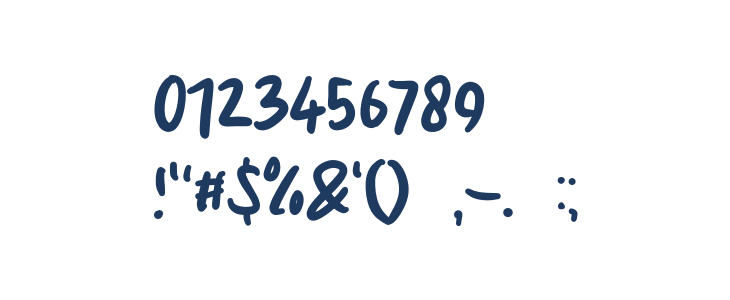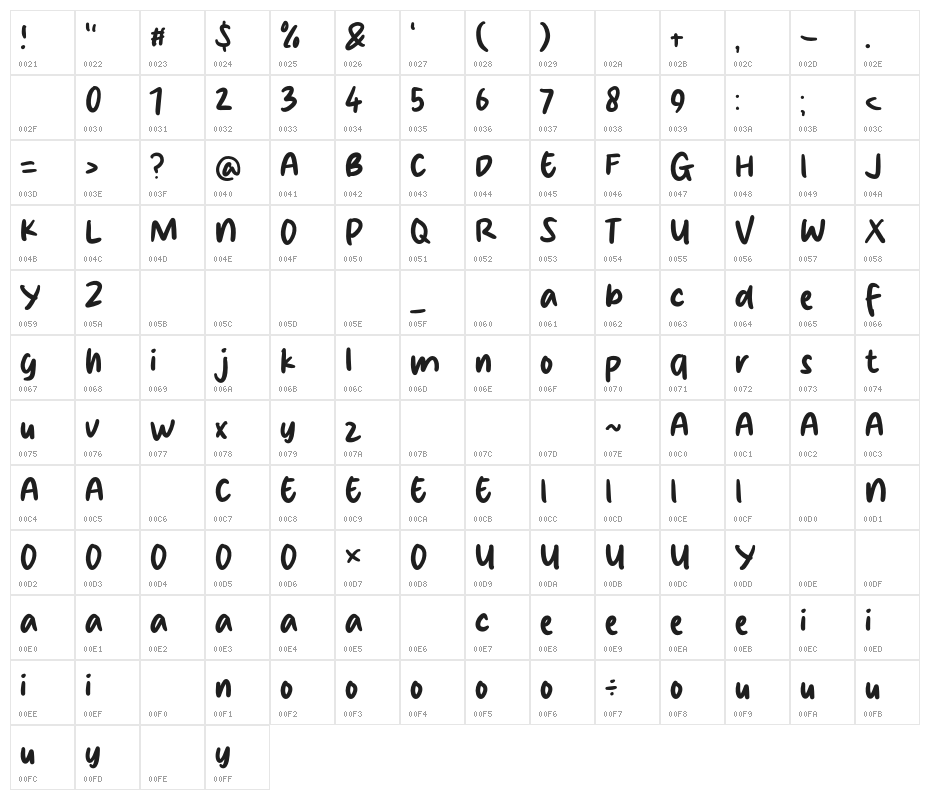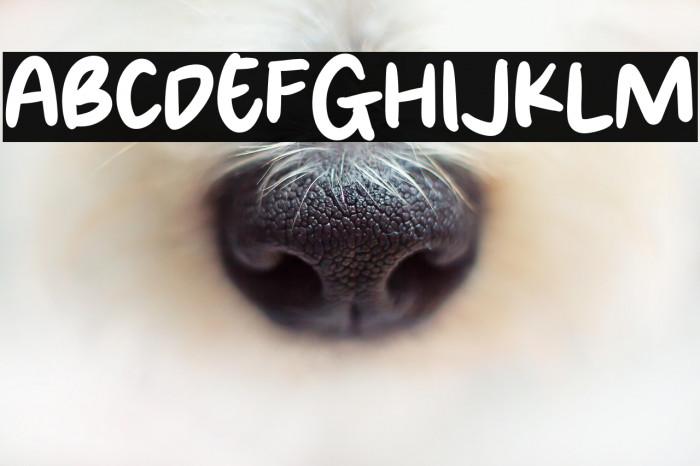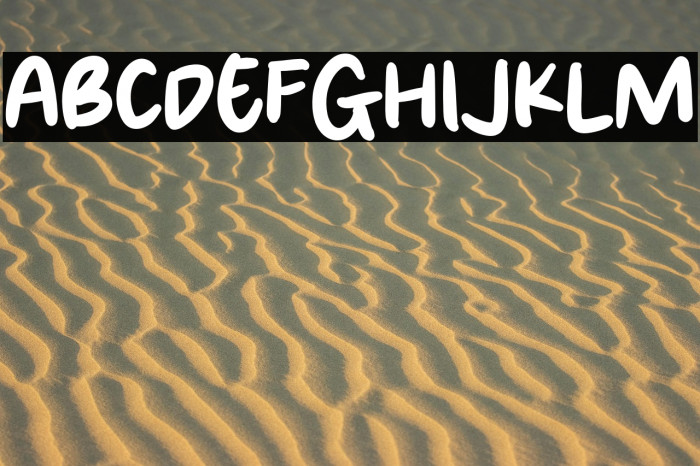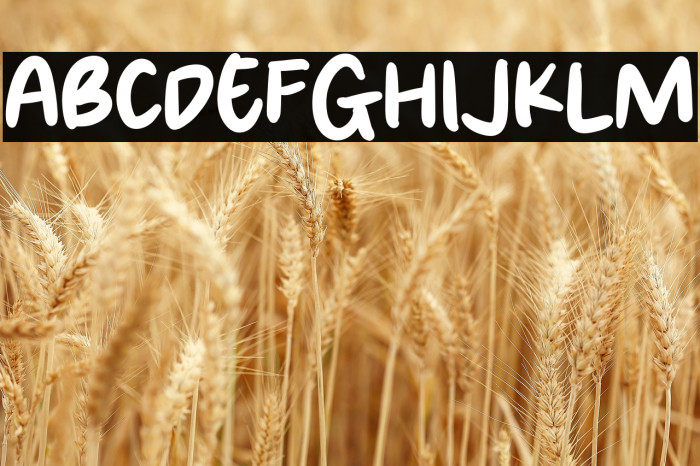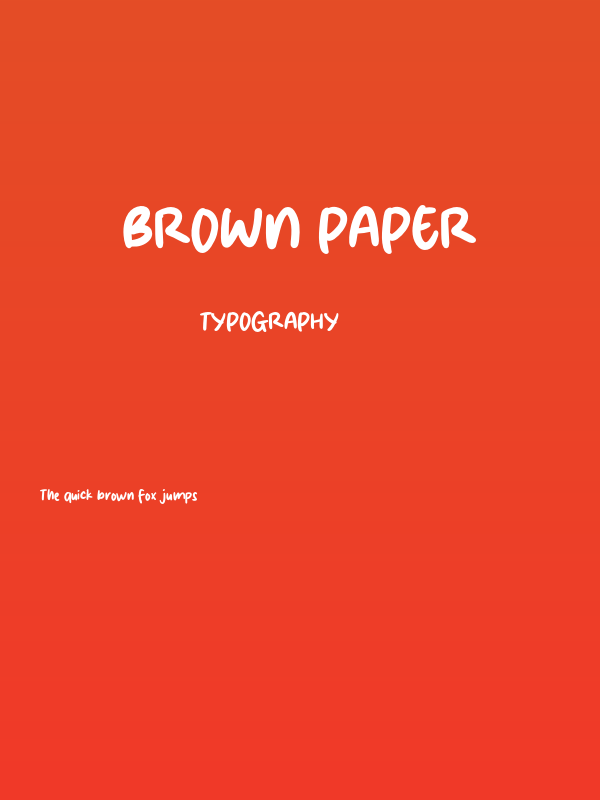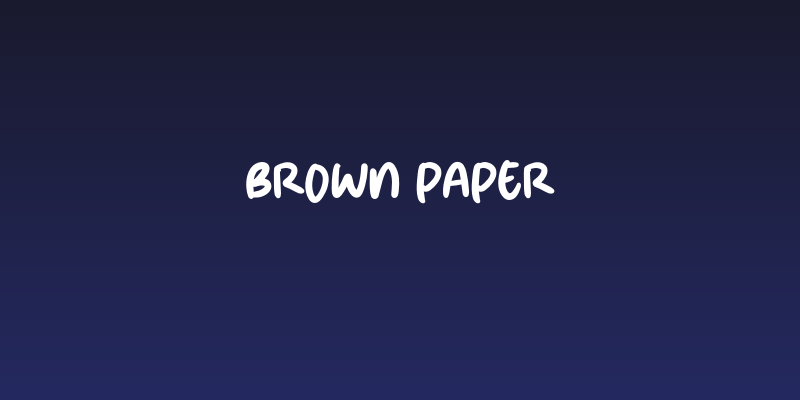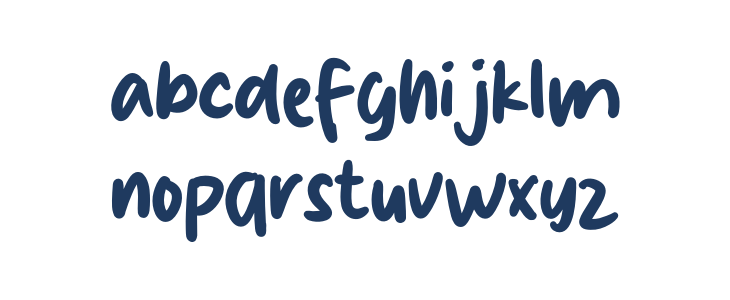
Brown Paper Font
Brown Paper Description
This font features a playful and informal handwritten style, characterized by its bold and rounded letterforms. The strokes are consistent in width, giving it a uniform appearance while maintaining a casual and approachable feel. The uppercase and lowercase letters are well-balanced, with a slight slant that adds to its dynamic nature. The numerals and special characters are crafted with the same playful touch, ensuring cohesion across all elements. This font is perfect for projects that require a friendly and personal touch, such as greeting cards, invitations, or children's book covers.
| Use Case | Logos, Headlines, Informal Text |
| Proposed Projects | Ideal for greeting cards, invitations, children's books, and playful branding. |